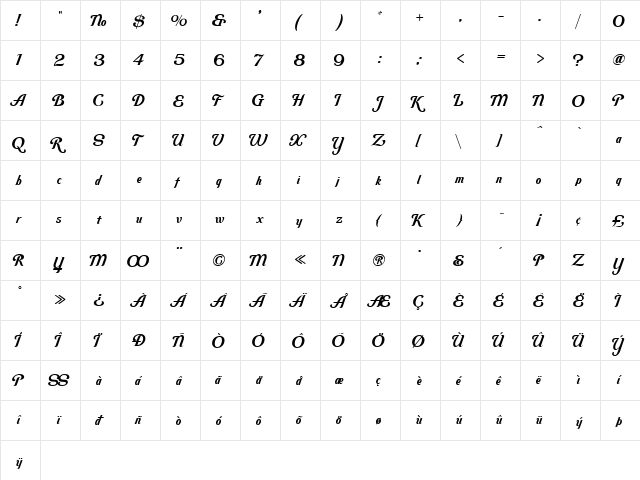
LHF Labelle Regular
Design Context for LHF Labelle Typeface
LHF Labelle is a composed and adaptable typeface that performs quietly and consistently across a wide range of design contexts.